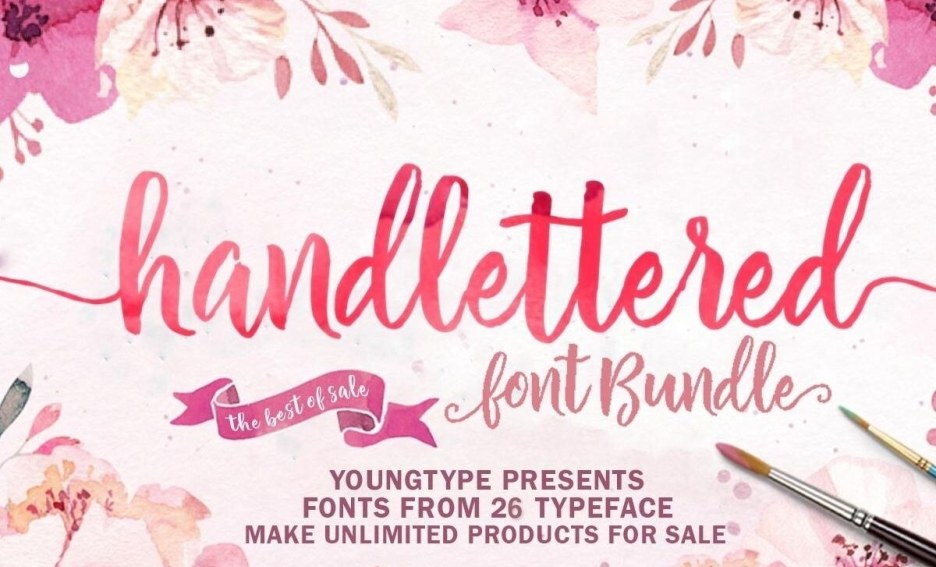
Hand-Lettered Font Bundle
Elevate your design projects with our Hand-Lettered Font Bundle, featuring a curated selection of unique and artistic typefaces. Each font is crafted with care, offering a personal touch that enhances your branding, logos, and printed materials.
• Multiple font styles including script, serif, and sans-serif
• Various weights to suit different design needs
• 10 hand-lettered fonts
• Bonus decorative elements
• Font styles: Script, Display, and more
• Weights: Light, Regular, Bold
• Ideal for branding, invitations, and promotional materials
• Combine different styles for a unique look